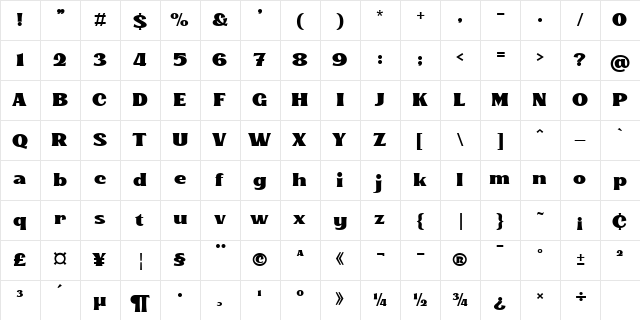
Kinsale Display Regular
Design Context for Kinsale Display Typeface
Kinsale Display brings ornamental detail and strong personality to headlines and identities, where visual impact matters more than quiet functionality.
Font Pairing: Pair with a clean neutral sans-serif for body copy to let Kinsale Display's character lead without overwhelming the composition.
Pro Tip: Treat Kinsale Display as the centrepiece of your typographic hierarchy. One strong heading set in a decorative face can carry an entire layout.